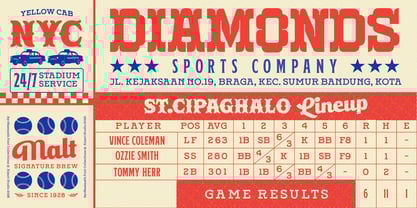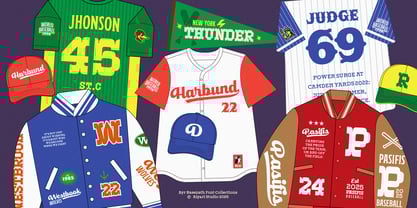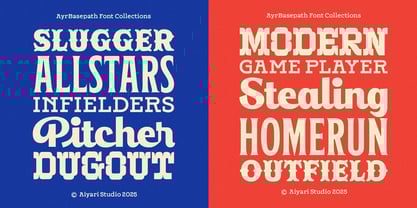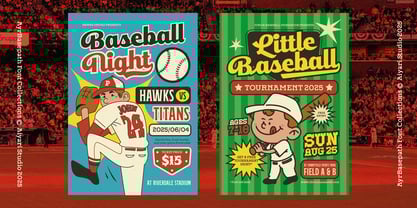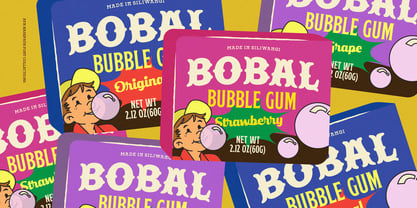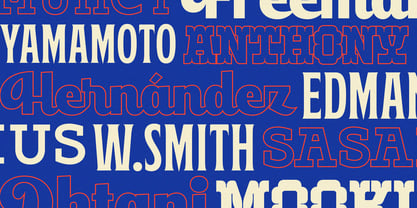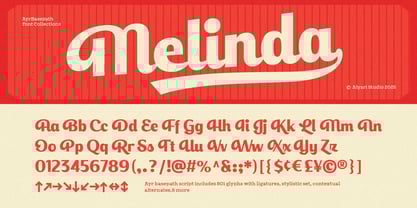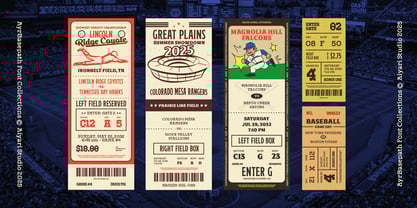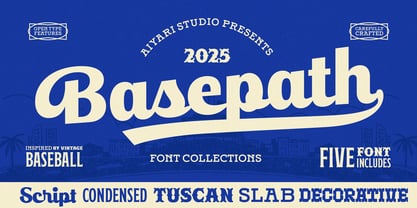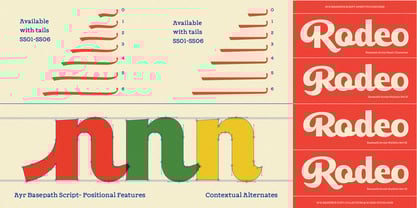
Basepath Font Collections
The Basepath Font Collections Font Family was designed by Ricky Rinaldi, Aprian Sembada and published by Aiyari. Basepath Font Collections contains 5 styles and family package options. More about this family
Basepath is a full course typographic menu serving up a nostalgic feast inspired by vintage American baseball tickets, posters, labels, and every well worn detail of the game’s golden era. It’s a modern retro spread of five delicious fonts, crafted to feel timeless and bold. Ayr Basepath offers a rich variety of textures for your designs. The standout is Basepath Script, packed with easy to use alternates and expressive decorative tails. It’s perfectly paired with a hearty Slab, a lean Condensed, and two ornamental Tuscan styles, each adding its own classic flavor. Basepath is the ultimate indulgence for projects craving that unmistakable taste of modern retro Americana. It’s your go-to ingredient for branding, event promotion, impactful headlines, and packaging that needs to capture the spirit of the ballpark.